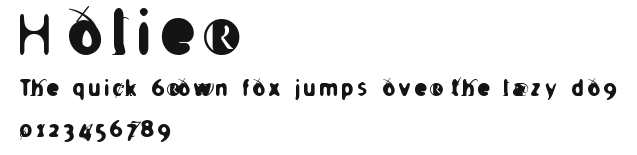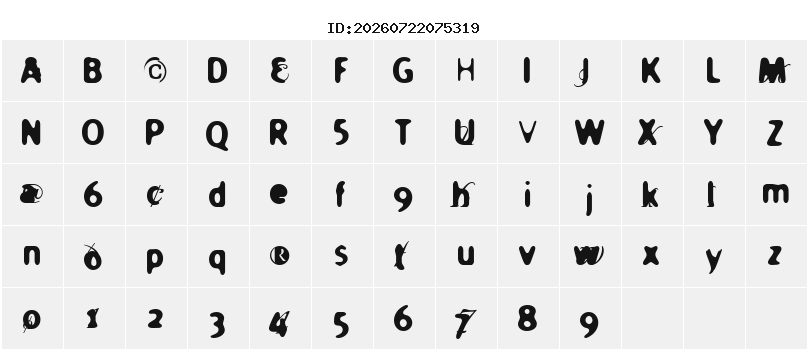
Holier Preview
• Font Name: Holier
• Full Font Name: Holier
• PostScript Name: Holier
About Holier.ttf
Holier.ttf is a modern, elegant sans-serif font designed for ultimate readability and visual harmony. Perfect for branding, headlines, web design, and print materials.